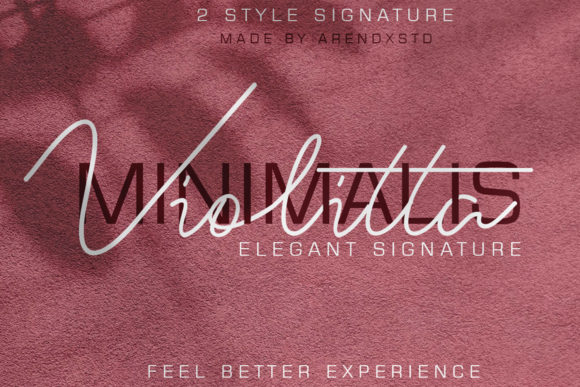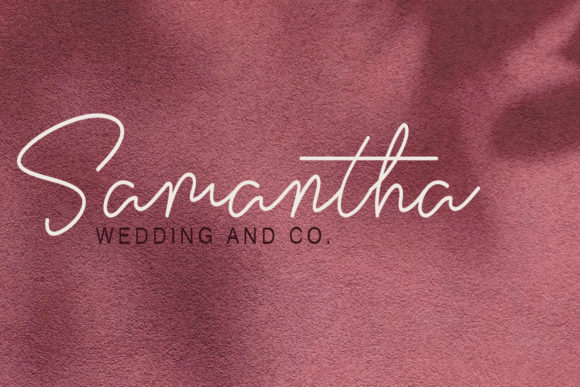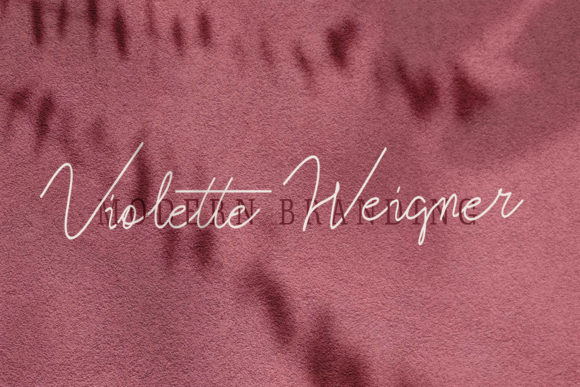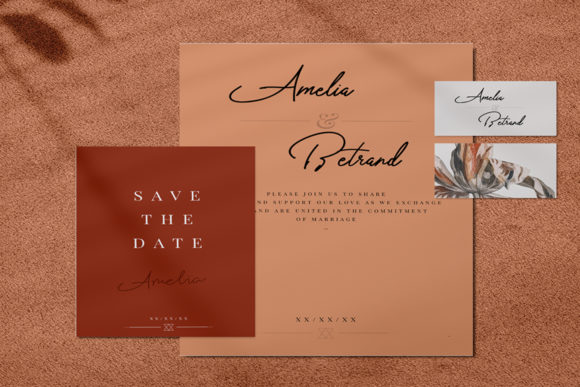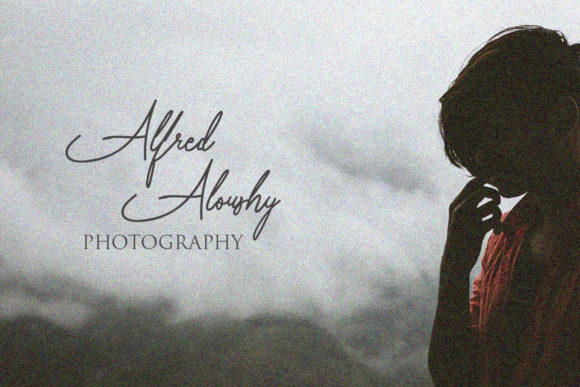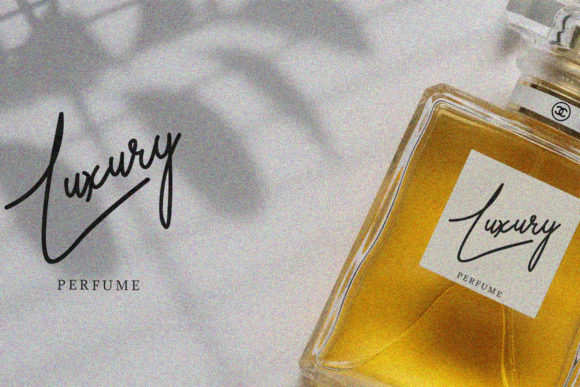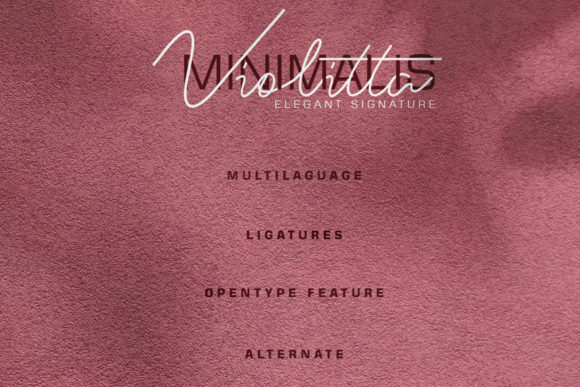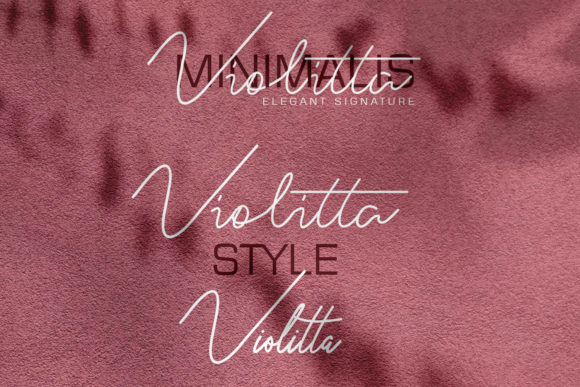
HomeScript FontsViolitta Font Script Fonts Violitta Font FacebookXPinterestWhatsApp Violitta Font Poster 2 Violitta Font Poster 3 Violitta Font Poster 4 Violitta Font Poster 5 Violitta Font Poster 6 Violitta Font Poster 7 Violitta Font Poster 8 About Violitta Font Violitta is a sweet and charming handwritten font with a cool twist. Get inspired by its luxurious feel! DOWNLOAD ON CREATIVE FABRICAThis font is sold and delivered by Creative Fabrica. Font Canyon may earn a commission if you buy through this link. People also explored Morning Garden Font Salvatrice Extra Light Font Santa Clause Font Laurretta Font Ellastia Font Vampire Bloods Font Pandamie Font Winter Memories Font Hello Funday Font 315 0 TagsViolitta Font Previous articleAngel Maleficent FontNext articleVetto Rosella Font LEAVE A REPLY Cancel reply Comment: Please enter your comment! Name:* Please enter your name here Email:* You have entered an incorrect email address! Please enter your email address here Website: Save my name, email, and website in this browser for the next time I comment. Personal Use Free BD AsciiMax Personal Use Free Read more about this font Imelda Personal Use Free Read more about this font Gdynia Personal Use Free Read more about this font Zelega Zenega Personal Use Free Read more about this font BLOG To increase your work productivity, choose the most readable fonts. In today's fast-paced work environment, where digital communication and information consumption are integral to our daily routines, the choice of fonts can significantly impact... How to Install and Use Fonts on Windows, macOS, and Web Projects Best Fonts for YouTube Videos: Make Your Thumbnails Stand Out Elegant Wedding Invitation Fonts – Handwritten & Script Fonts